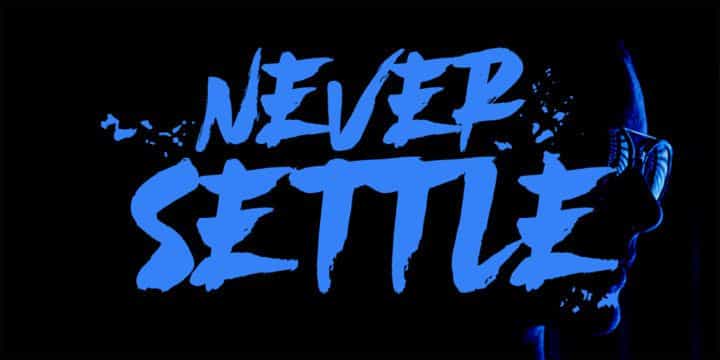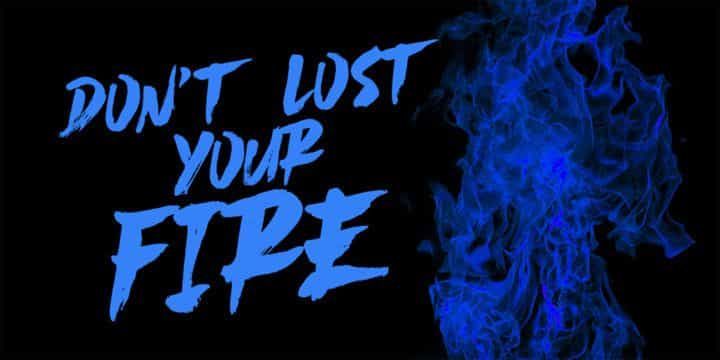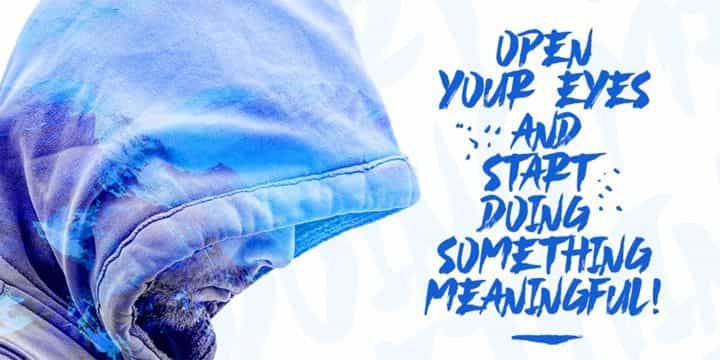
Never Settle is the handwritten font with the cool and powerful handwriting that goes well with different styles. It will bring any design idea to the whole new level of uniqueness! NEVER SETTLE to give the best to you!